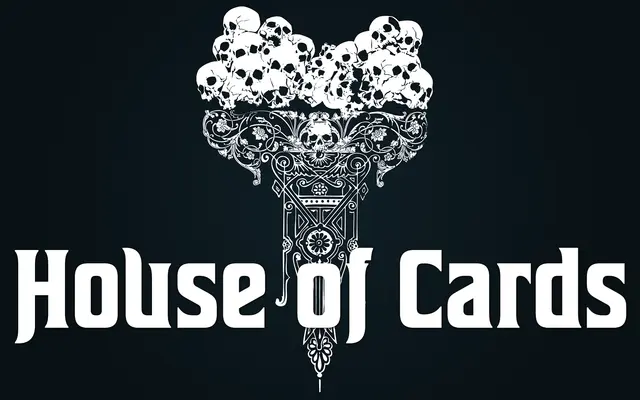
House of Cards
A revival of Hamilton's Teniers wood type, offered in two weights with italics and sprayed stroke alternates for period-appropriate poster lettering.
Based on Teniers, one of the more popular wood type faces of the 19th century, this revival retains the retro character of the original while modifying the lowercase for a slightly more contemporary feel. Two weights ship with matching italics, and OpenType Stylistic Alternates or Swash features unlock sprayed stroke variants for letters including F, H, P, U and others. Best suited to posters, display titles and branding that wants a convincing vintage register.
A revival of Hamilton's Teniers, a 19th-century wood type design, with display proportions and bold character suited to poster and titling work. Categorised as display due to its heritage in large-scale wood type printing.